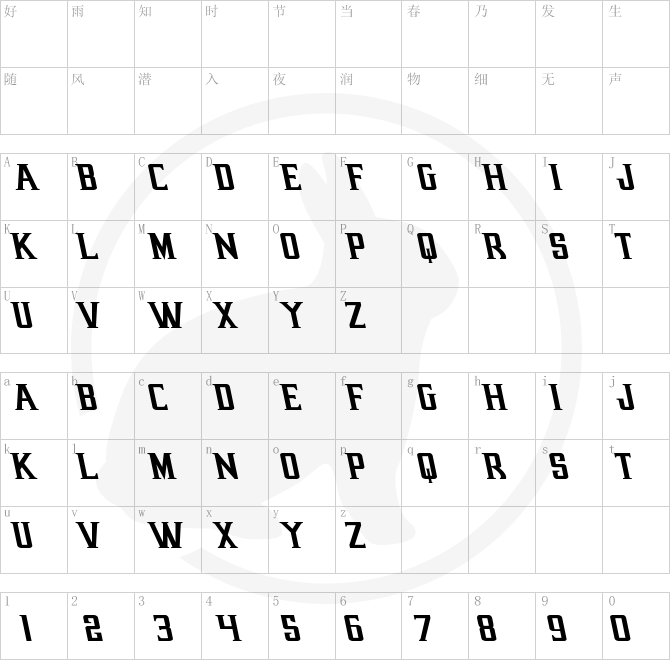
• Font Name:Earthrealm Leftalic
• Subfamily:Italic
• Full Name:Earthrealm Leftalic
Earthrealm-Leftalic.ttf is a very beautiful artistic font, Earthrealm-Leftalic.ttf is widely used in the design and printing of various books and pictures,Earthrealm-Leftalic.ttf has a strong visual impact,Earthrealm-Leftalic.ttf is a commonly used font in newspapers, magazines and books, and is used in posters, e-commerce Poster design, store design, logo design, font design and other fields.Earthrealm-Leftalic.